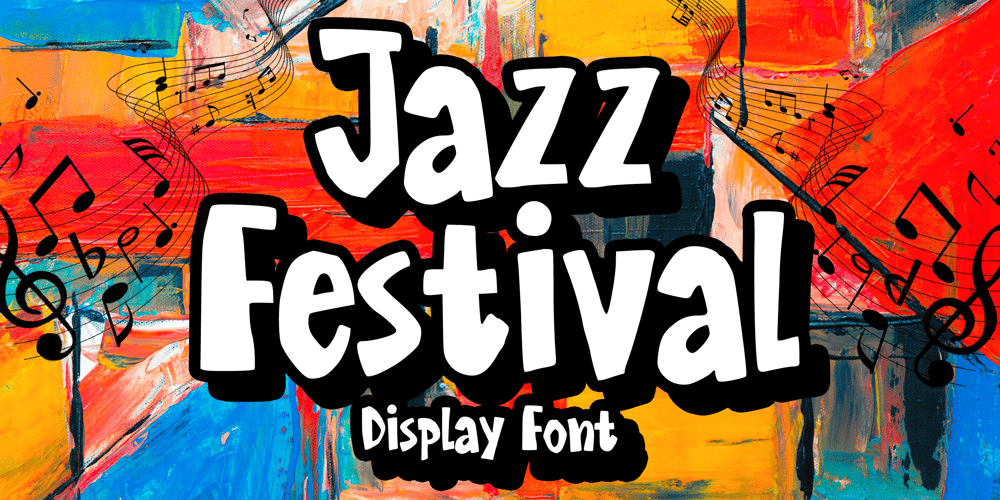
Jazz Festival Font Family was designed by Gabriel Valentinus and published by Mvmet. Jazz Festival contains 1 styles and family package options. Jazz Festival is a artsy display font inspired by vintage art deco posters and jazz music. You can use it for anything ranging from t-shirts, book designs, and greeting cards to stickers and posters, or anything that needs an art touch. Fall in love with its incredibly versatile style, and use it to create lovely designs!